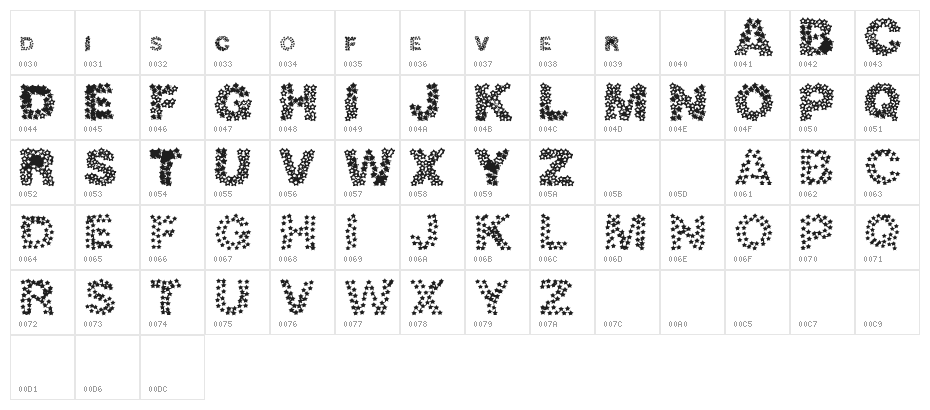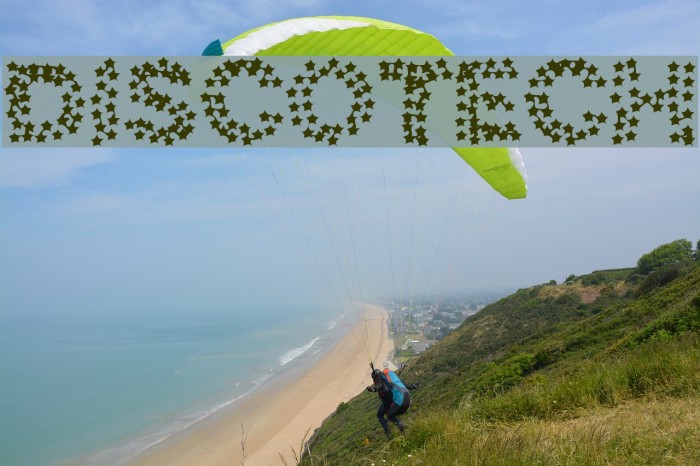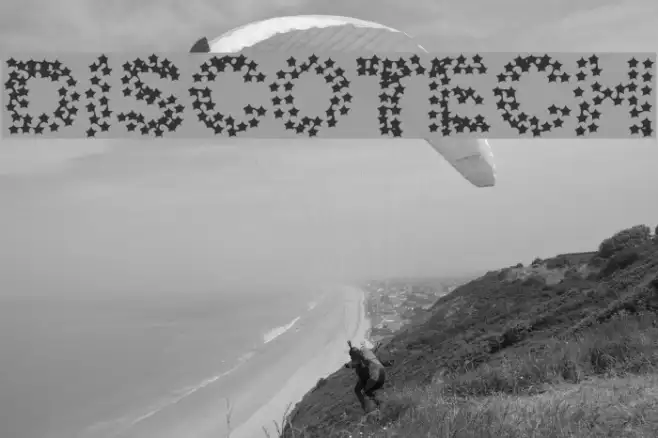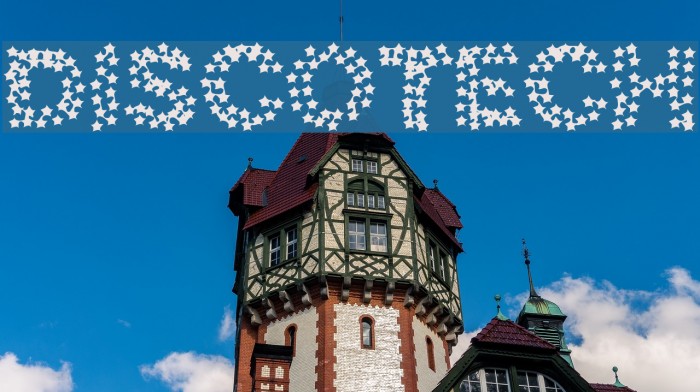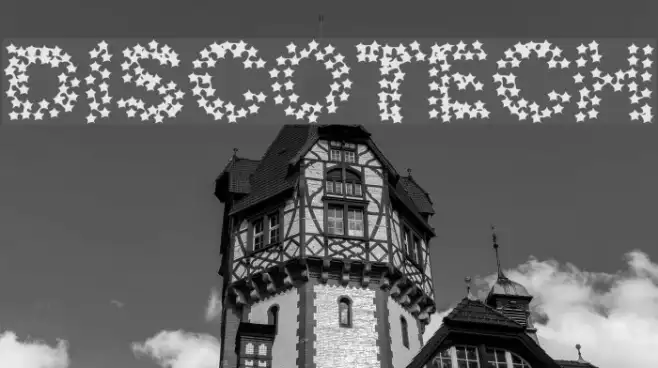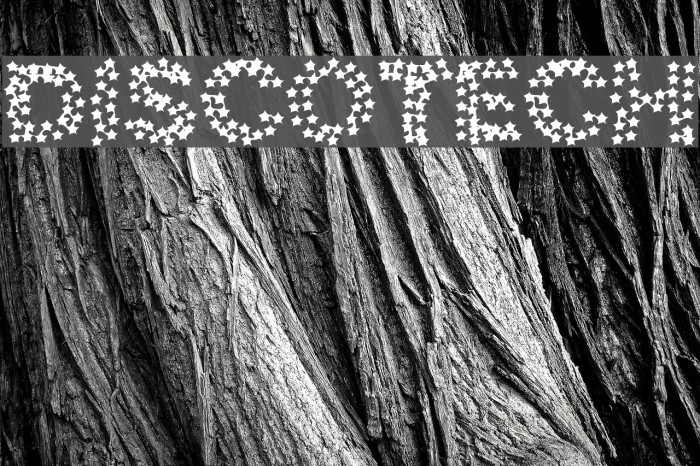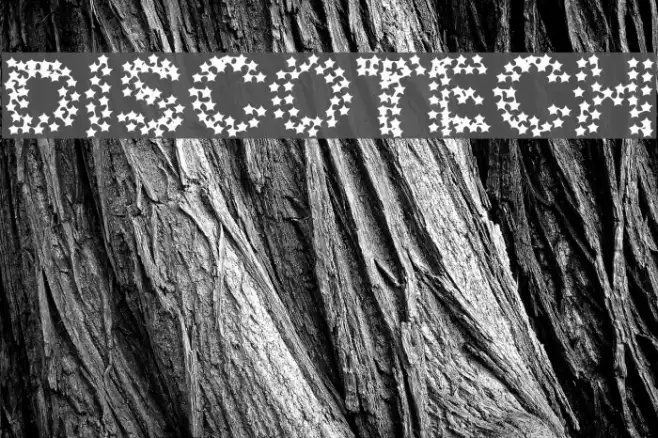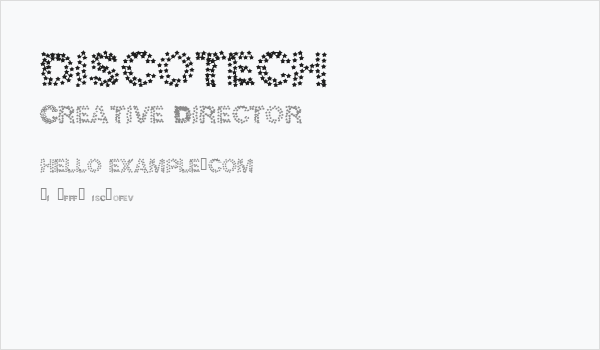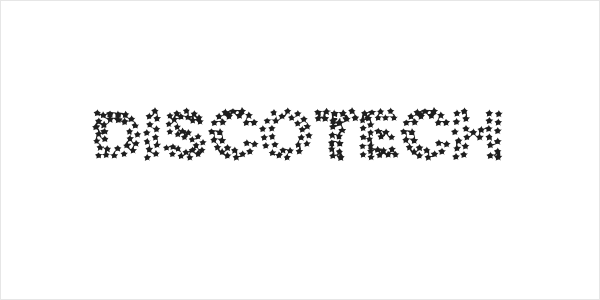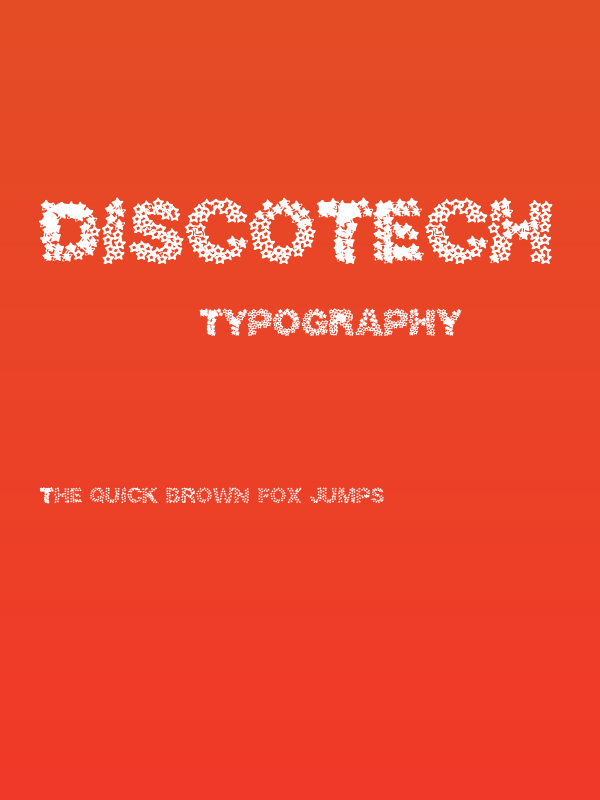
discotech Font
discotech Description
This font features a unique and playful design composed of small star-like shapes forming each letter. The characters are bold and eye-catching, making them ideal for vibrant and energetic themes. The uppercase letters are consistent in style, with a uniform distribution of the star patterns, creating a cohesive and dynamic appearance. The font exudes a sense of fun and excitement, reminiscent of disco and party atmospheres. Its decorative nature makes it stand out, perfect for projects that require a touch of whimsy and flair.
Proposed ProjectsThis font is perfect for party invitations, event posters, music album covers, and any project that aims to capture a festive and dynamic spirit.